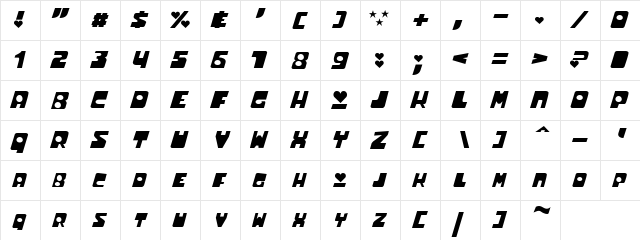
Powerpuff Regular Font Preview
Powerpuff Regular
Design Context for Powerpuff Typeface
Powerpuff brings high-energy athletic personality to the page — its confident, muscular forms are built for impact.
Built for sports team identities, athletic apparel, event posters, and high-energy promotional material.
Pro Tip: Powerpuff thrives on contrast — try it large, bold, and tight against a clean background for maximum visual impact.